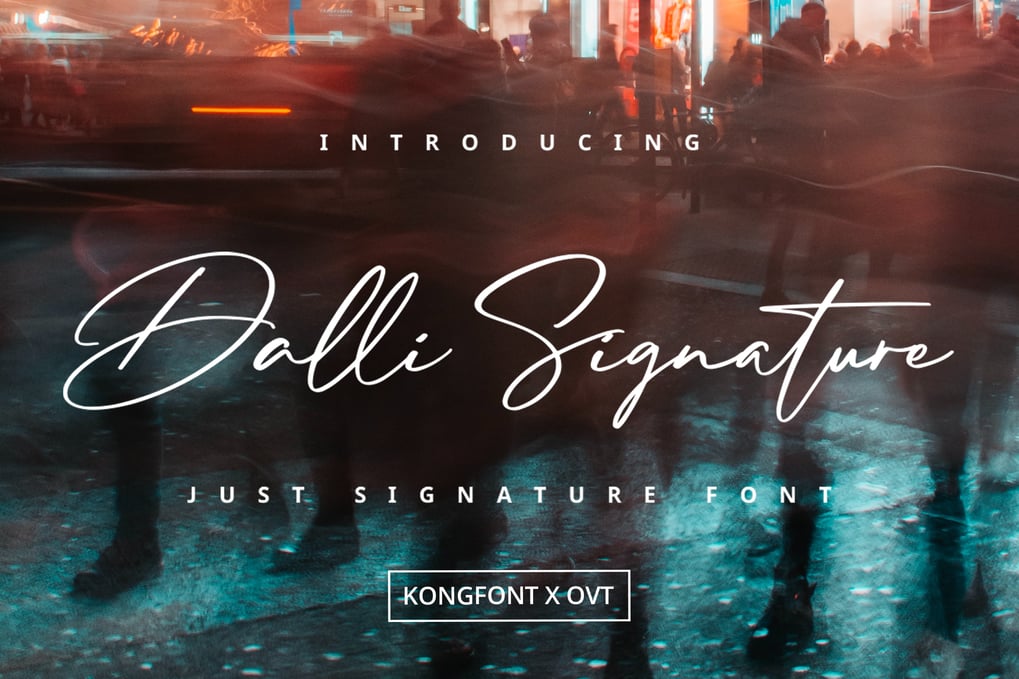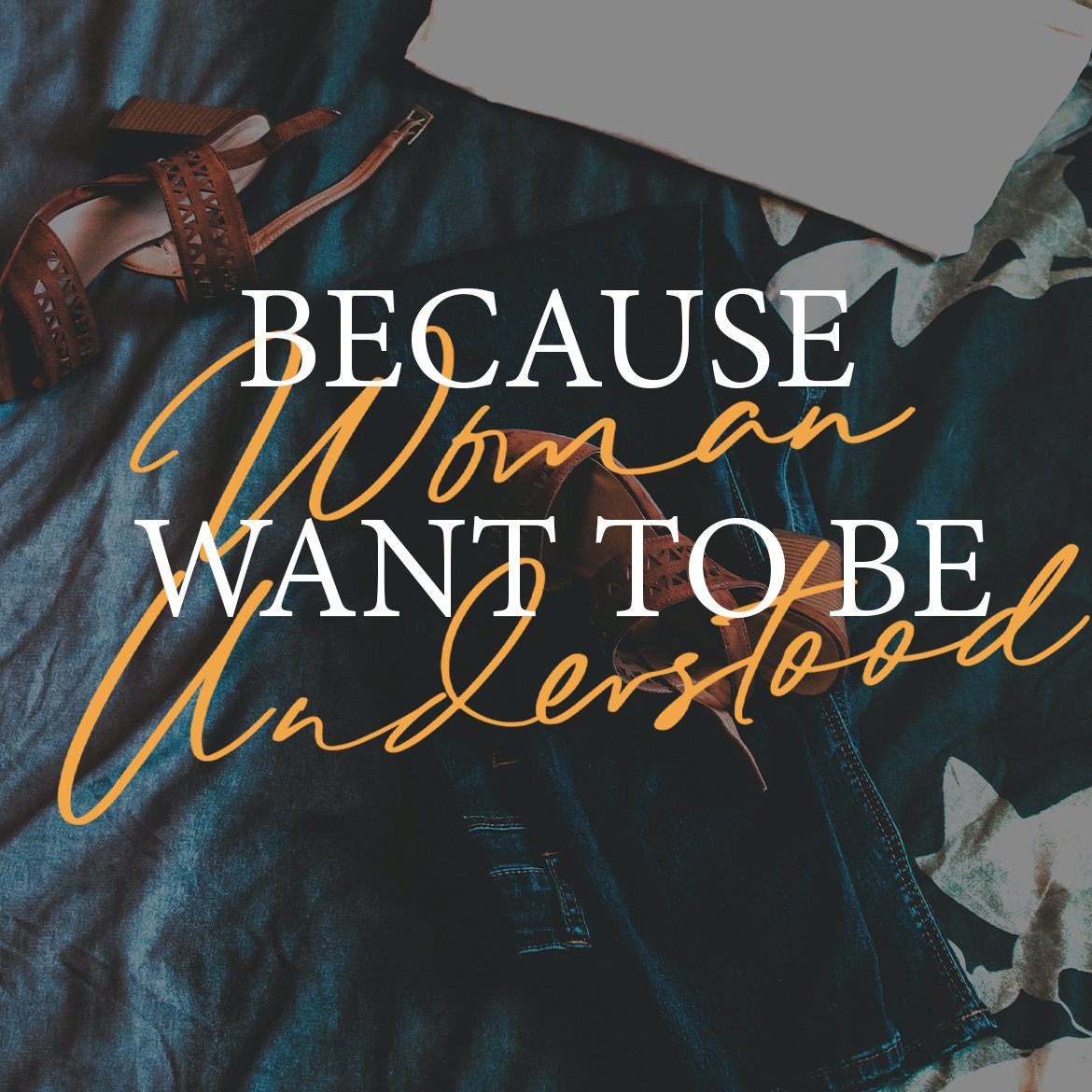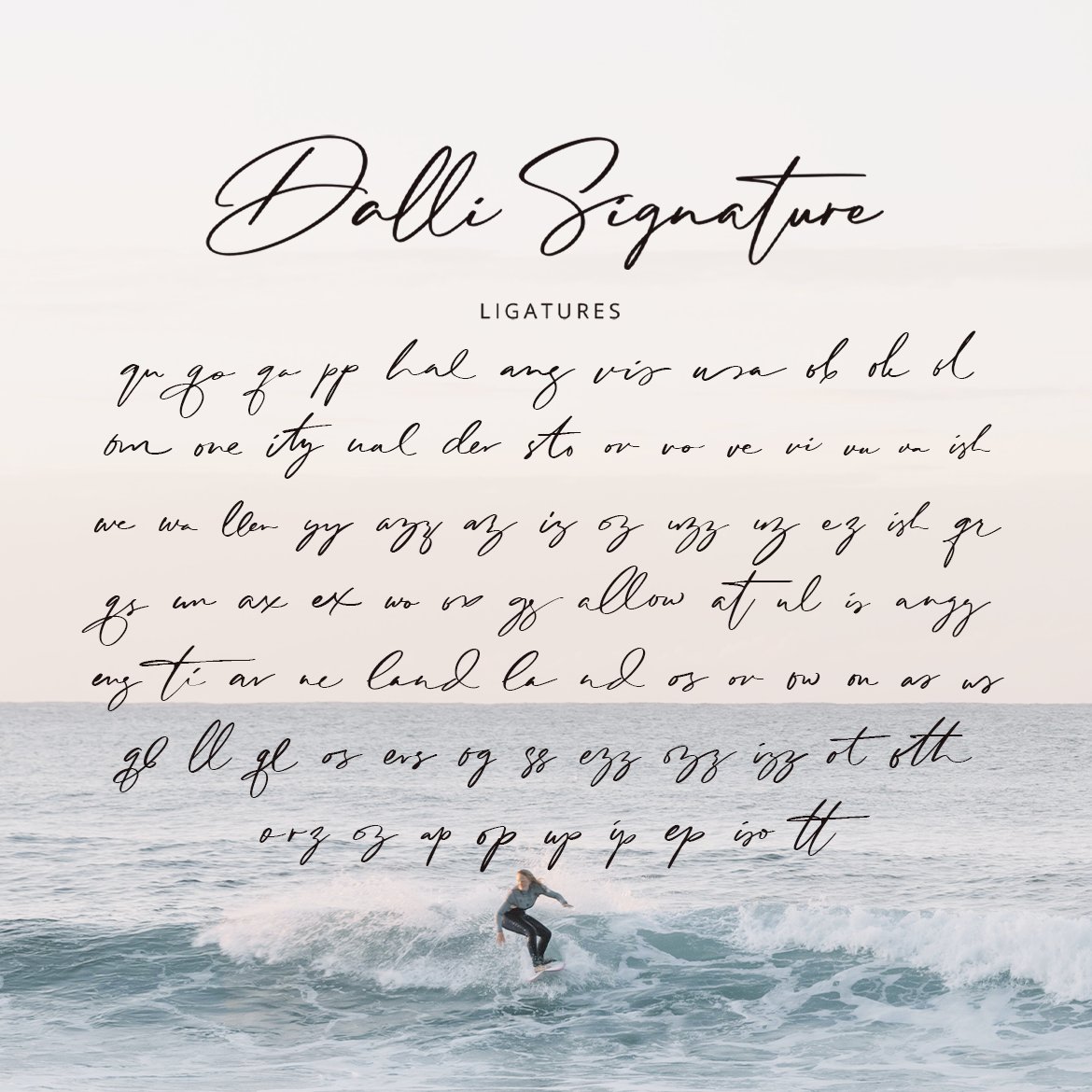
Dalli Signature – Just Signature Font
Ideal for personal branding, logos, business cards, invitations, and social media graphics, Dalli Signature’s flowing and graceful strokes provide a timeless and professional aesthetic. Each character is meticulously crafted to reflect the natural movement and elegance of true handwriting, ensuring your designs stand out with a personal and sophisticated touch.